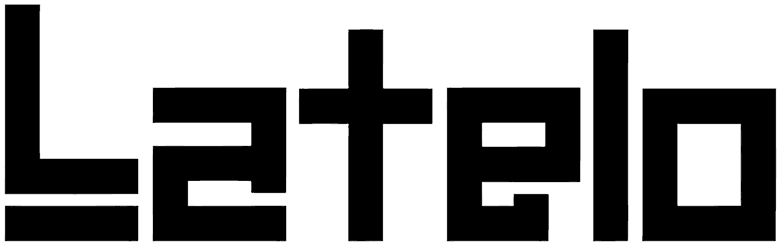
Latelo Font
How prepared are you to advance your designs to the next level? Don’t bother looking any further than the Latelo font. Add some futuristic style to your work with this cutting-edge techno font. Although it lacks number c…
How prepared are you to advance your designs to the next level? Don’t bother looking any further than the Latelo font. Add some futuristic style to your work with this cutting-edge techno font.
Although it lacks number characters, this square font is ideal for use in anything from website headers to graphic design, thanks to its sharp, ancient symbols. There’s no need to hold off, then. Immediately improve your creations by downloading the Latelo font from RB.